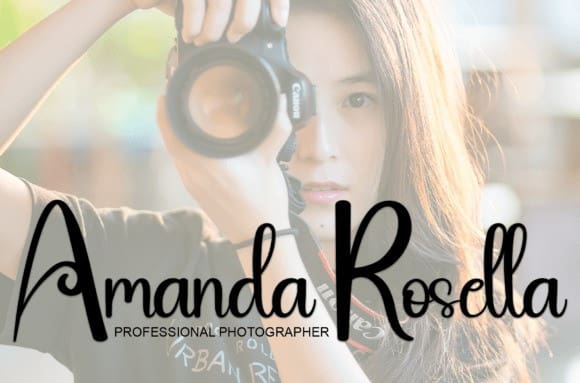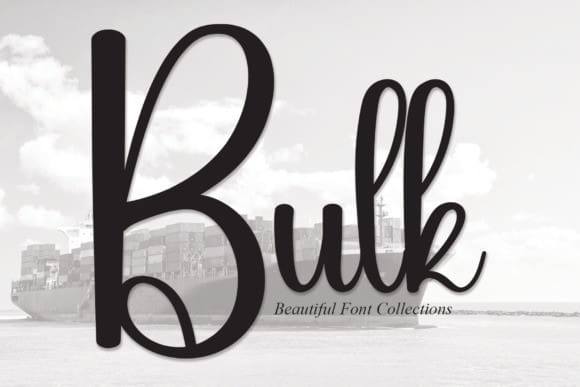
Bulk Script Font
Bulk Script Font is a sweet and friendly handwritten font. Creative and cute, this font is ideal for writing wedding invitations, cards, or any other design that might need a fun touch!